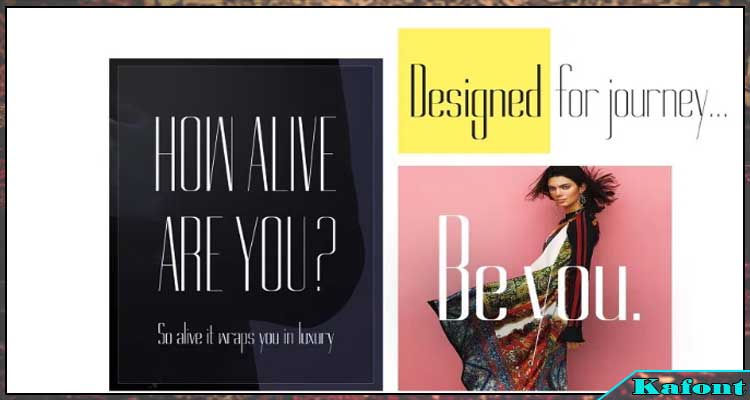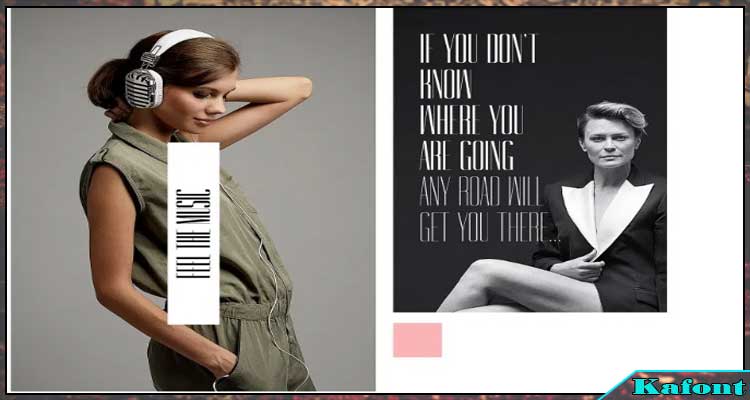
Gorgeous Sans Serif Font Family Free is a wonderful typeface for display designs. There are various weights and glyphs included in the font.
The best thing about the typeface is that it comes with 12 weights. Not only that, but it also stores 385 glyphs. These glyphs let you experience various capitals, numbers, small letters, punctuations, as well as accents. Thanks to these features, the font has appeared in several common design projects such as magazine, book cover, branding, logo, and so forth.
Distinctive Features
One of the hallmark features of the Gorgeous Font Family is its versatility. Whether employed in digital or print media, the font family adapts seamlessly to different contexts, from headlines and branding to body text and signage. Its range of weights and styles offers designers the flexibility to convey various moods and messages, from sleek and contemporary to timeless and refined.
Functionality and Readability
While Gorgeous Font Family excels in visual appeal, it also prioritizes functionality and readability. Each glyph is carefully crafted to ensure optimal legibility, even at smaller sizes or within challenging design environments. This commitment to clarity makes the font family not only aesthetically pleasing but also practical for conveying information effectively.
Applications
The versatility and sophistication of the Gorgeous Font Family make it well-suited for a myriad of design applications. Whether used in editorial layouts, advertising campaigns, web design, or branding projects, the font family lends a touch of elegance and professionalism to any visual composition. Its adaptability across different mediums and design contexts further enhances its value to designers and typographers alike.
Gorgeous Font Family